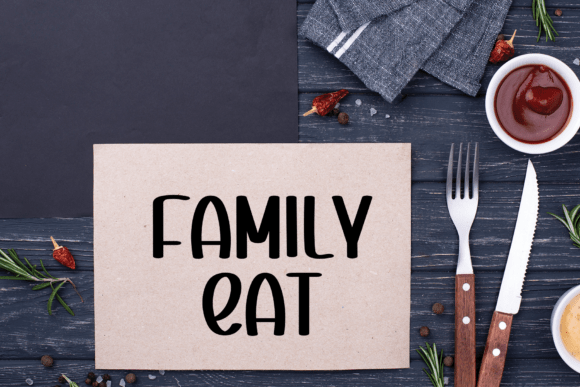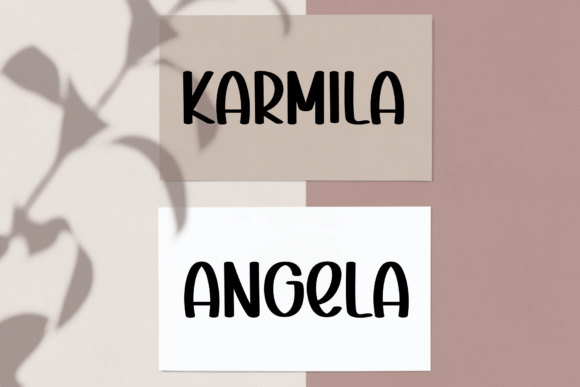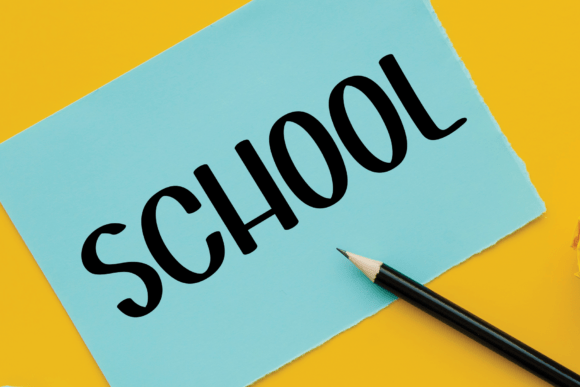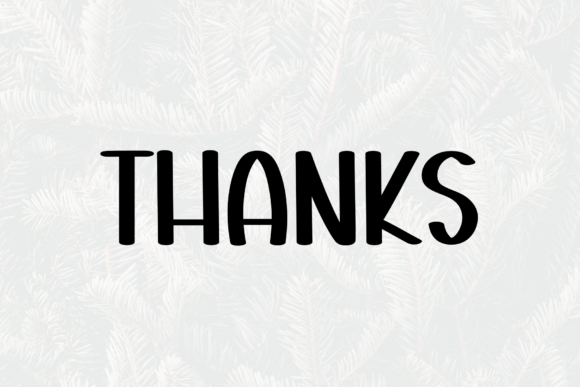
Introduction to Flamingo Font
Have you ever stared at a blank design canvas, feeling the pressure to create something truly unique and captivating? That’s where the magic of typography comes in. For designers, finding the perfect font can be a game-changer, elevating a project from good to great. And that’s where the Flamingo Font comes in – a bold and authoritative display font that’s about to revolutionize your creative projects.
With its friendly, “hand-drawn” personality and stable vertical axis, the Flamingo Font is an exceptional choice for designers seeking a high-quality design resource. Its thick, vertically elongated letterforms and consistent monolinear weight make it perfect for tropical-themed branding, creative product packaging, lifestyle editorial headers, and vibrant social media graphics. Plus, with its transparent background, you can easily integrate it into any design, making it a valuable asset for your next creative project.
Whether you’re looking to spice up your design portfolio or simply need a reliable font for your next free download, the Flamingo Font is an excellent addition to your design arsenal. So why settle for an ordinary font when you can have an extraordinary one? Dive into the world of the Flamingo Font and discover a whole new level of design possibilities.
Key Features of Flamingo Font
- Comes in a single weight, making it ideal for use in logos, branding, and other design elements where a clean, modern aesthetic is desired.
- Supports a wide range of languages and characters, making it a versatile design resource for global creative projects.
- Unique, modern design with a subtle flair, making it perfect for adding a touch of creativity to any design project.
Honest Review: Flamingo Font
I recently had the chance to work with the Flamingo Font, and I must say it’s a great addition to any design resource collection. This free download offers a unique touch for creative projects that need a little extra flair.
- ✨ High-quality design: The Flamingo Font is well-crafted and offers a smooth, consistent look across various sizes and resolutions.
- ✨ Transparent background: This feature is perfect for designers who need to overlay the font on images or videos, creating a seamless and professional look.
- ⚠️ Limited character set: The Flamingo Font only includes a basic set of characters, which may not be suitable for extensive text-based projects.
- ⚠️ Not ideal for small text: The font’s design, while great for headings and titles, may not be the best choice for small body text due to its decorative nature.
Overall, I’m impressed with the Flamingo Font’s unique design and versatility. While it may have some limitations, it’s a great resource for designers looking to add a touch of personality to their creative projects.